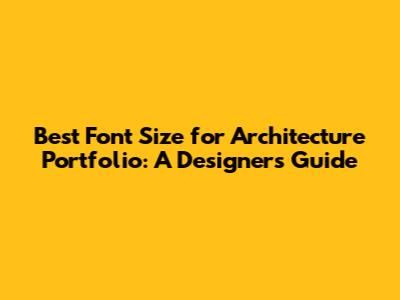
- Readability: Prioritize fonts that are easy to read, especially for body text. Avoid overly decorative or stylized fonts that can strain the eyes.
- Professionalism: Choose fonts that convey a sense of professionalism and sophistication. Classic fonts like Helvetica, Arial, and Times New Roman are always safe choices.
- Consistency: Stick to a limited number of fonts (typically two or three) to maintain a cohesive look. Use one font for headings and another for body text.
- Compatibility: Ensure that the fonts you choose are compatible with both screen and print. Some fonts may look great on a computer screen but become difficult to read when printed.
- Serif Fonts: Times New Roman, Garamond, Georgia (These fonts have small decorative strokes at the end of each letter and are often used for body text.)
- Sans-Serif Fonts: Helvetica, Arial, Calibri (These fonts do not have serifs and are often used for headings.)
- Use a grid system: A grid system helps you create a consistent and organized layout. It ensures that your text and images are aligned properly and that there is sufficient white space.
- Pay attention to line height: As mentioned earlier, line height is the vertical space between lines of text. A good line height can significantly improve readability.
- Use white space effectively: White space (also known as negative space) is the empty space around text and images. It helps to create visual separation and makes the content easier to read.
- Proofread carefully: Always proofread your portfolio carefully for any errors in grammar or spelling. Errors can detract from the overall impression and make your portfolio look unprofessional.
- Get feedback: Ask friends, colleagues, or mentors to review your portfolio and provide feedback on the font size, readability, and overall design. Fresh eyes can often spot issues that you may have missed.
- Using too many fonts: Sticking to a limited number of fonts is important for maintaining a cohesive look. Using too many fonts can make your portfolio look cluttered and unprofessional.
- Using fonts that are too small: Remember, readability is crucial. Using fonts that are too small can strain the eyes and make it difficult for viewers to read your portfolio.
- Ignoring line height: Line height can have a significant impact on readability. Ignoring line height can make your text feel cramped or too spaced out.
- Not proofreading: Proofreading is essential for catching any errors in grammar or spelling. Not proofreading can make your portfolio look unprofessional.
Creating an architecture portfolio is a crucial step for architecture students and professionals alike. It's your visual resume, showcasing your best work and design skills. But beyond the impressive projects and stunning visuals, the readability of your portfolio is paramount. One key element that significantly impacts readability is font size. Getting the font size right is essential to ensure that your portfolio is not only visually appealing but also easy to read and understand. An architecture portfolio with unreadable text will not impress anyone. It will instead be an example of bad design, regardless of how good the architectural design is. So, what's the ideal font size for an architecture portfolio? Let's dive into the details.
Understanding the Importance of Font Size in Portfolio Design
Font size isn't just about making text bigger or smaller; it's about creating a harmonious balance between aesthetics and readability. Think of your portfolio as a carefully constructed building. Each element, including the typography, needs to be in proportion to the others to create a cohesive and visually pleasing whole. The right font size ensures that your text is legible without overwhelming the design. When choosing a font size, consider the overall layout, the amount of text on each page, and the target audience. Remember, the goal is to make your work accessible and engaging. If the text is too small, it strains the eyes, and readers might give up. If it's too large, it can look unprofessional and childish. Finding the sweet spot enhances the overall presentation and communicates your professionalism.
Moreover, consistent font sizes throughout your portfolio create a sense of order and professionalism. Imagine a building where the windows are of different sizes and shapes seemingly at random – it would look chaotic and disorganized. Similarly, inconsistent font sizes can make your portfolio appear sloppy and unprofessional. Stick to a limited range of font sizes for headings, subheadings, body text, and captions to maintain a clean and cohesive look. This consistency not only improves readability but also reflects your attention to detail and design sensibilities. Using a well-chosen font size contributes significantly to the overall impact of your portfolio, ensuring that your work is presented in the best possible light. It shows that you care about the user experience and that you've put thought and effort into every aspect of your presentation.
Recommended Font Sizes for Different Portfolio Sections
When it comes to choosing the right font size, there's no one-size-fits-all answer. It depends on the specific section of your portfolio and the type of information you're presenting. Here's a breakdown of recommended font sizes for different parts of your portfolio:
Headings
Headings are the signposts that guide readers through your portfolio. They should be prominent and easily distinguishable from the body text. A good rule of thumb is to use font sizes ranging from 18 to 24 points for main headings. This ensures that they stand out and grab the reader's attention. For subheadings, opt for font sizes between 14 and 16 points. These should be smaller than the main headings but still larger than the body text. Using a clear hierarchy of headings helps organize your content and makes it easier for readers to navigate. The goal is to create a visual structure that allows viewers to quickly understand the key points of each project. Don't be afraid to experiment with different font styles and weights to further differentiate your headings. For example, you might use a bold font for main headings and a semibold font for subheadings. The key is to maintain consistency and ensure that the headings are always legible and visually appealing. Effective headings can significantly enhance the overall readability and impact of your portfolio.